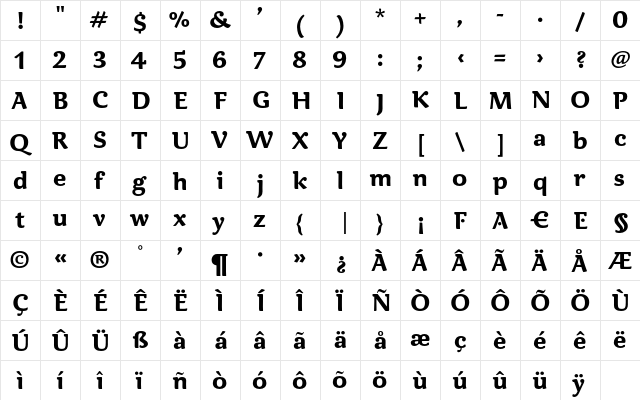
CarrefourMetis Bold
Design Context for CarrefourMetis Typeface
CarrefourMetis takes a measured approach to typography — its balanced proportions and neutral character make it a reliable workhorse for both digital and print work. The heavy weight commands attention and anchors typographic hierarchies.